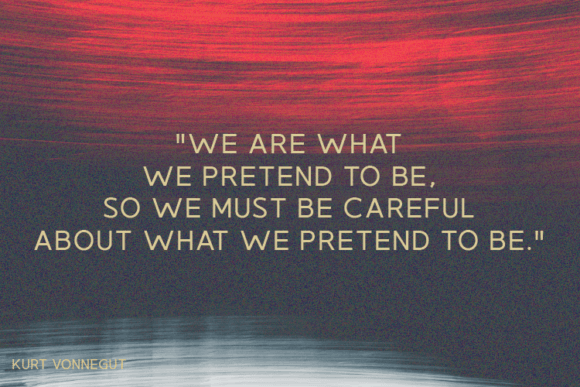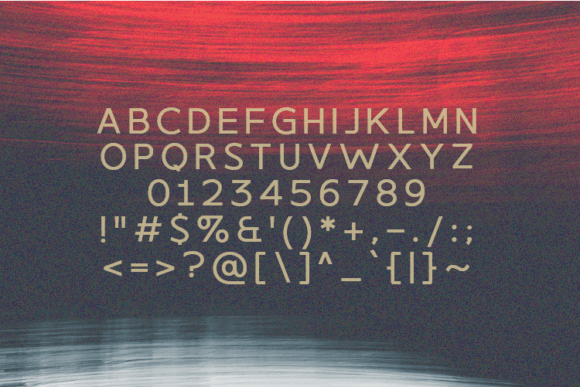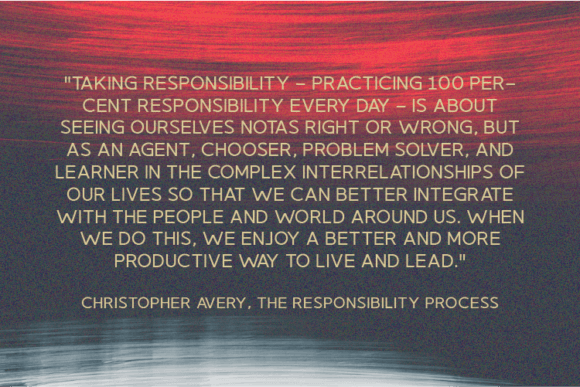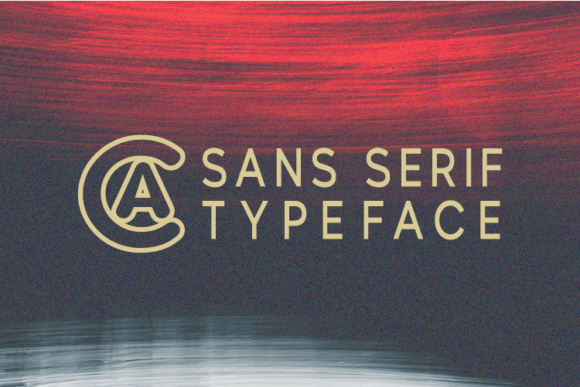
Introduction to Roebount Font
As designers, we’ve all been there – staring at a blank canvas, waiting for the perfect font to bring our creative project to life. It’s that moment of clarity, when the right typeface clicks into place, that makes all the difference. For those seeking a modern, classy sans serif font that’s as versatile as it is stunning, the Roebount Font is an exceptional choice.
Perfect for a wide range of applications, from logos and wedding invitations to quotes and advertisements, the Roebount Font is a valuable design resource that’s sure to elevate any creative project. With its high quality and sleek aesthetic, this font is ideal for designers who demand only the best. And the best part? It’s available for free download, making it an accessible addition to any design arsenal.
- Unique characteristics: modern aesthetic, elegant lines, and versatile typography
Honest Review: Roebount Font
As a designer, I’m always on the lookout for high-quality design resources to enhance my creative projects. Recently, I stumbled upon the Roebount Font, and I’m excited to share my honest review with you.
What works well: ✨ The Roebount Font has a unique, modern aesthetic that’s perfect for creating a clean and minimalist look. The font is highly customizable, allowing you to adjust the weight, size, and style to suit your design needs. Additionally, the font is available for free download, making it a great resource for designers on a budget.
- Perfect for creating a modern, minimalist look in creative projects
However, I did encounter some limitations: ⚠️ The font is not available in as many styles as I would have liked, and the character set is somewhat limited. Additionally, the font may not be suitable for complex designs that require a lot of customization.
Overall, I’m impressed with the Roebount Font, and I would definitely recommend it to designers who are looking for a high-quality, free design resource. While it may have some limitations, the font’s unique aesthetic and customization options make it a valuable addition to any design toolkit.
Tips for Getting the Most Out of Roebount Font
To get the most out of the Roebount Font, experiment with different font sizes, colors, and combinations. Use the font in conjunction with other design elements, such as images and shapes, to create visually appealing graphics. The transparent background of the font makes it perfect for creating overlays and other design elements.
The Roebount Font is perfect for a variety of creative projects, including business presentations, marketing materials, and social media graphics. Use the font to create eye-catching headings, titles, and body text that grab the attention of your audience. The high quality and versatility of the font make it a valuable design resource for any project.